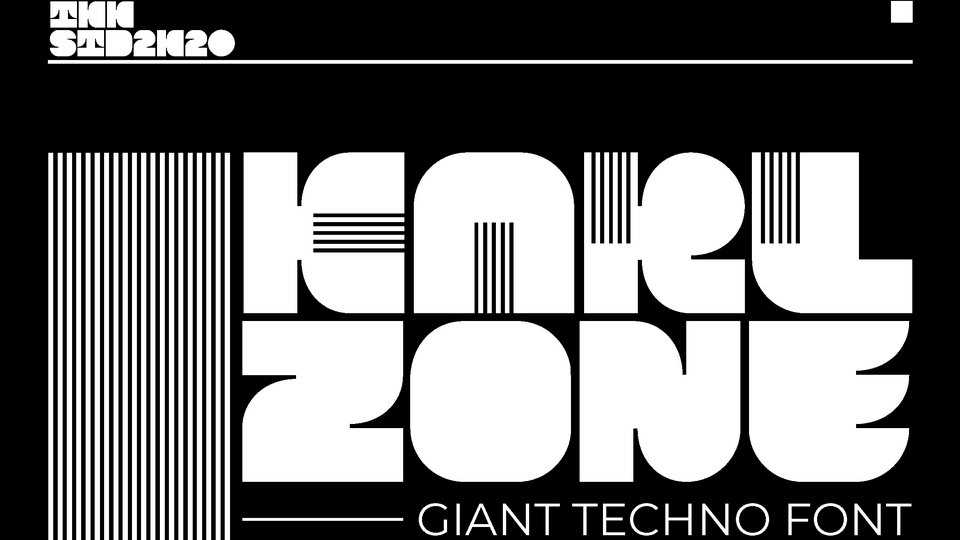
Download Karl Zone font, a bold display typeface that depict power, speed, tough as a nail attitude. With tight spacing and large shape, Karl Zone will suit perfectly when using size above 72pt.